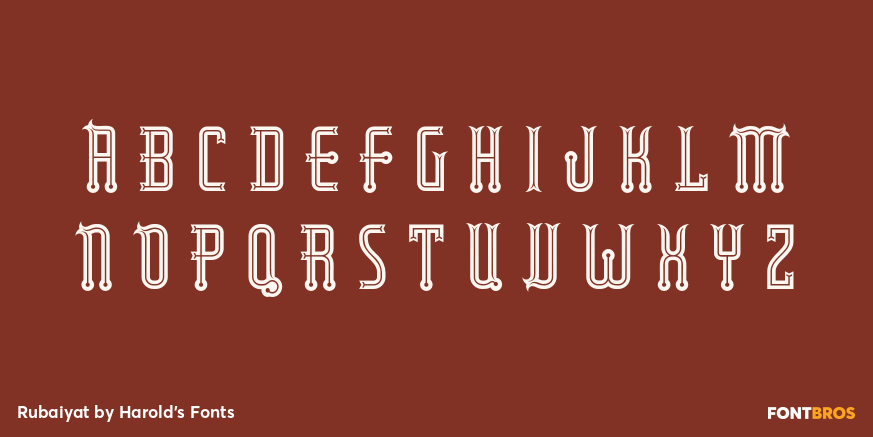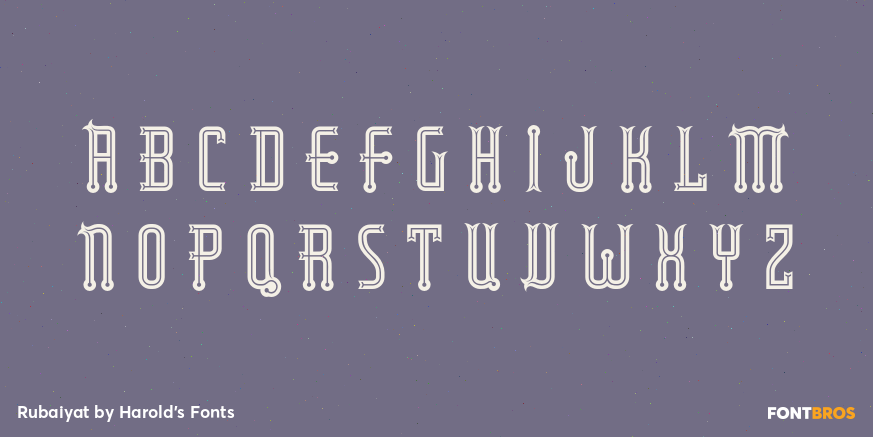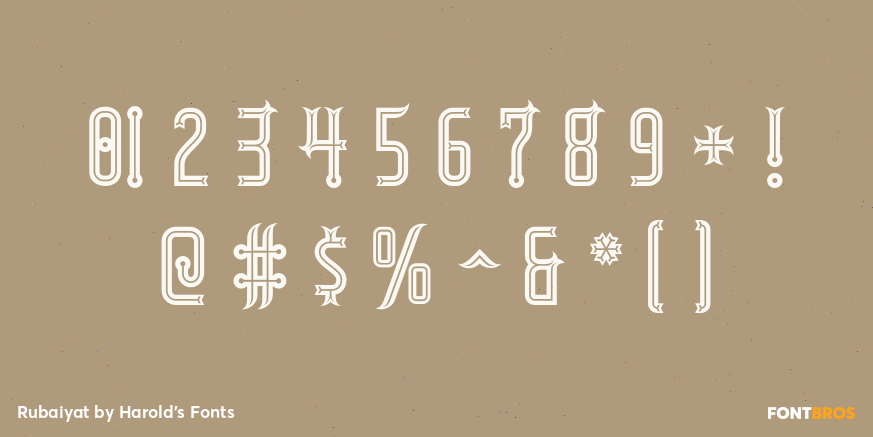
Rubaiyat
Font Family by Harold's Fonts
RUBAIYAT was inspired by a vintage fruit crate label with an "Arabian Nights" style. After a hiatus, Rubaiyat has returned.